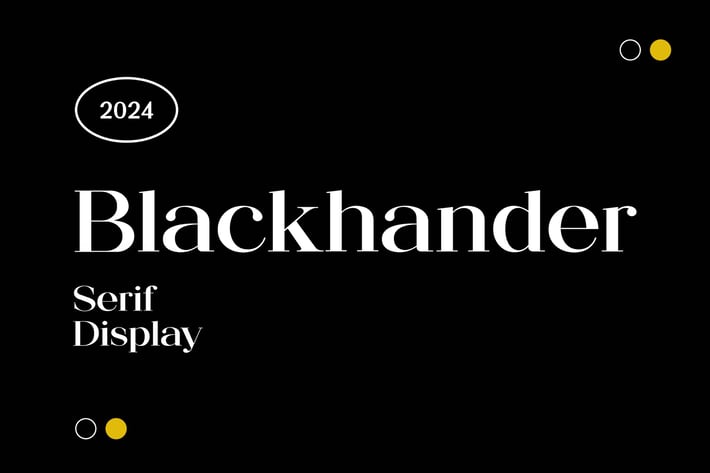
Blackhander Serif Display Font
Introducing our new product the name is Blackhander Serif Display Font. Elegant Serif font that feels beautiful classy, elegant, and modern. This font is ideally suited for a wide variety of projects, such as signature, stationery, logo, wedding, typography quotes, magazine or book covers, website headers, clothing, branding, packaging design, and more. Also, fashion-related branding or editorial design displays both masculine and feminine qualities.